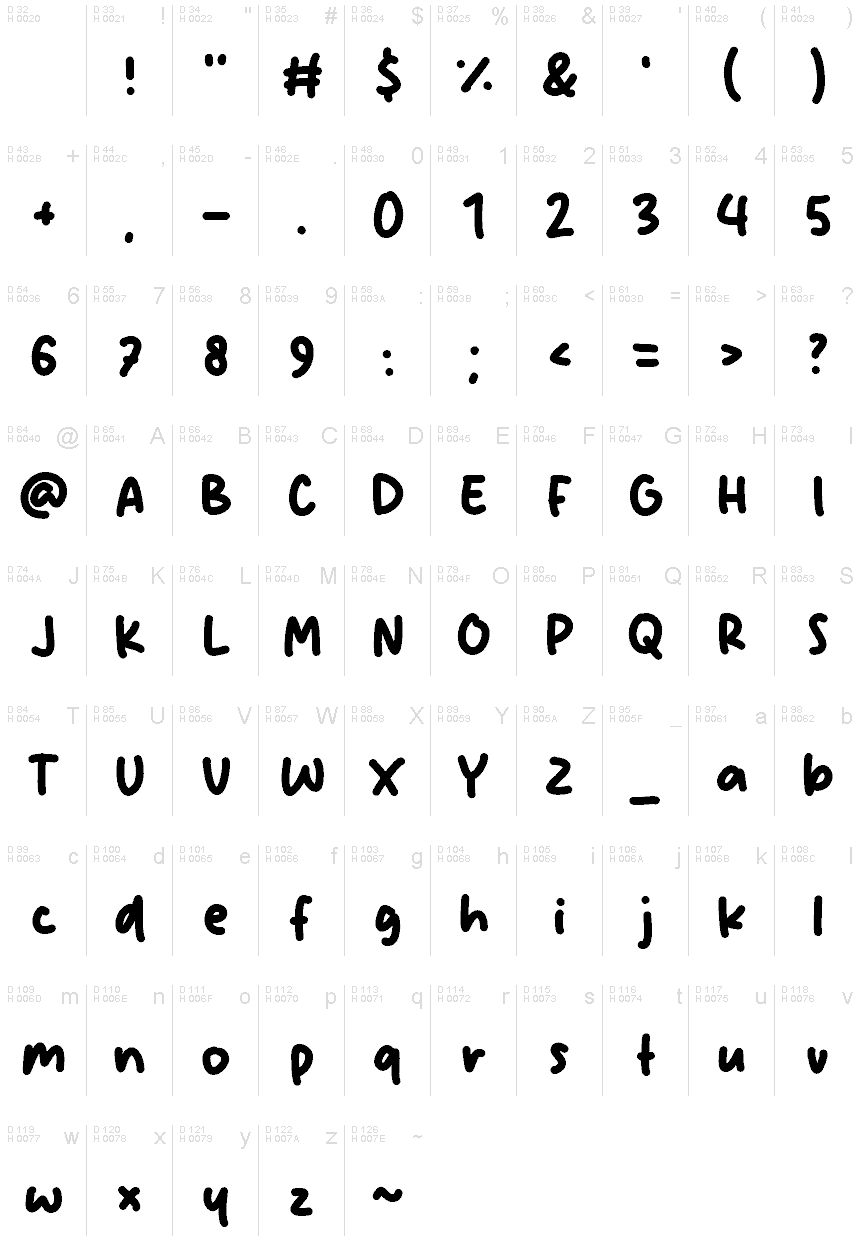
Lovely Sign
Lovely Sign font is a handwritten display font by Origin Type. Simple and natural with a modern touch, the font is easy to read and pleasant to look at. It has an organic appearance with rounded endings as well as casual, friendly, approachable, and contemporary feel which makes it suitable for today’s design styles.
The free handwritten font can be used in greeting cards, social media posts, book covers; wedding invitations designs; advertisement materials; product package labels; t-shirt design ideas; posters or flyers printouts created both digitally or manually. Websites requiring special fonts can settle on this one too!